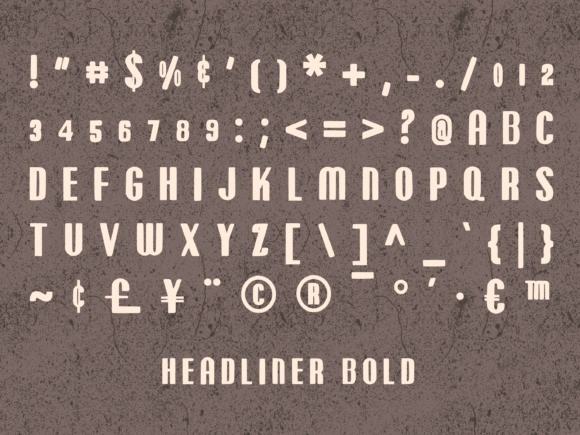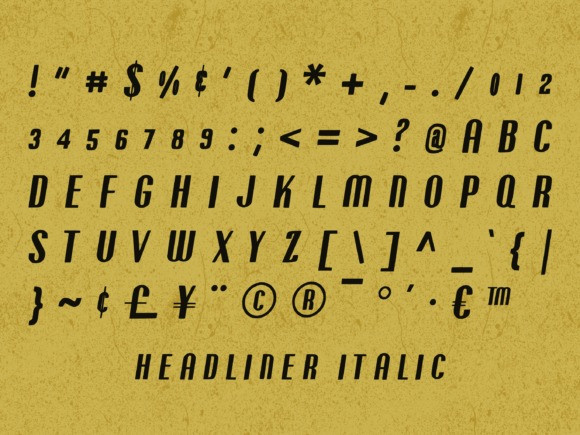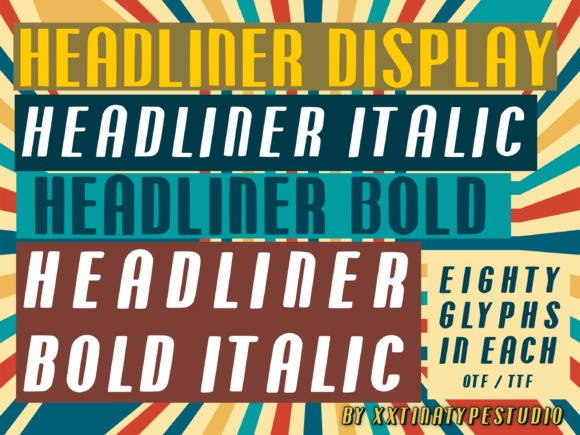
Headliner Font
Headliner Sans Serif  Font is a modern, all-caps sans serif display font with rounded geometrical edges. Great for headlines, signs, posters, logos, and more.